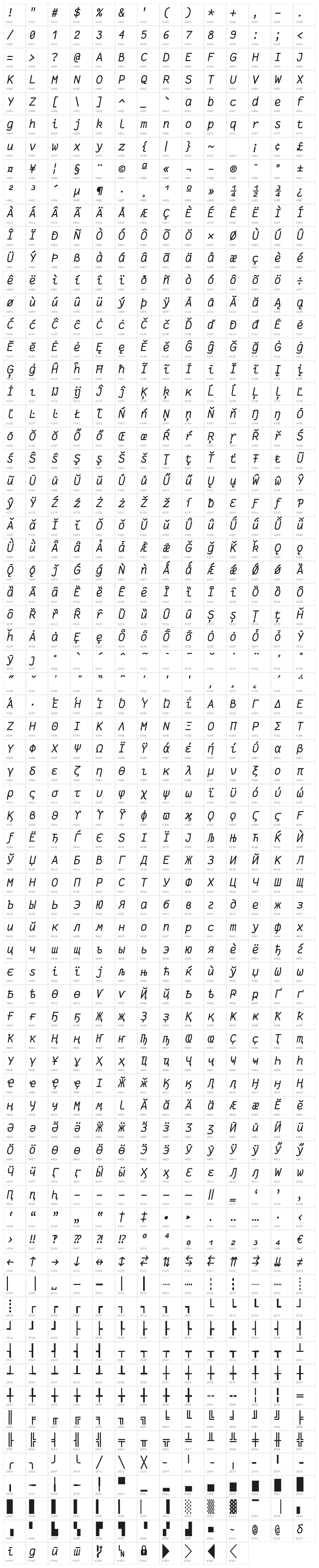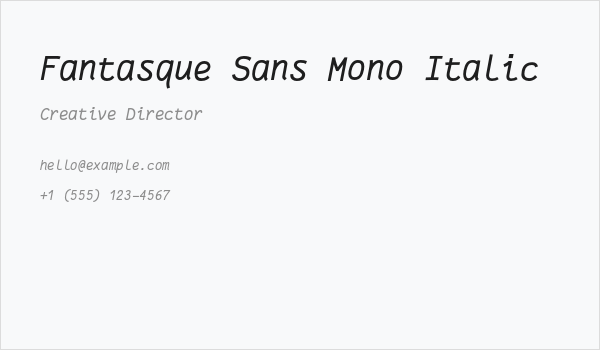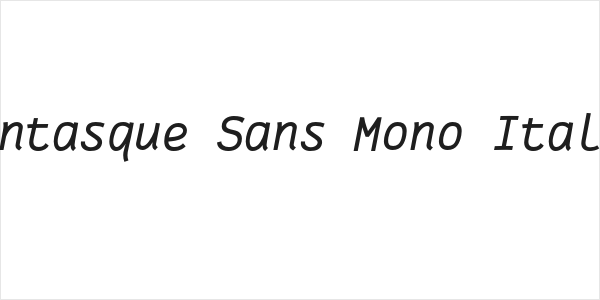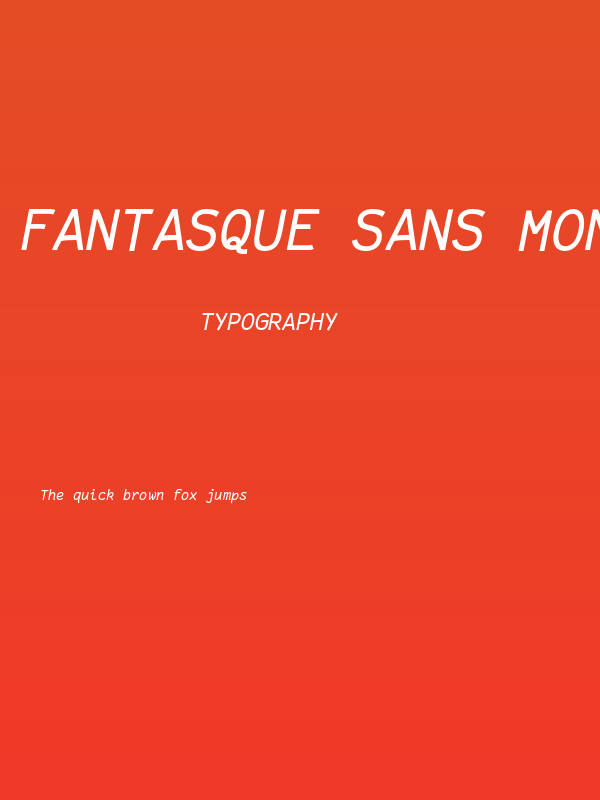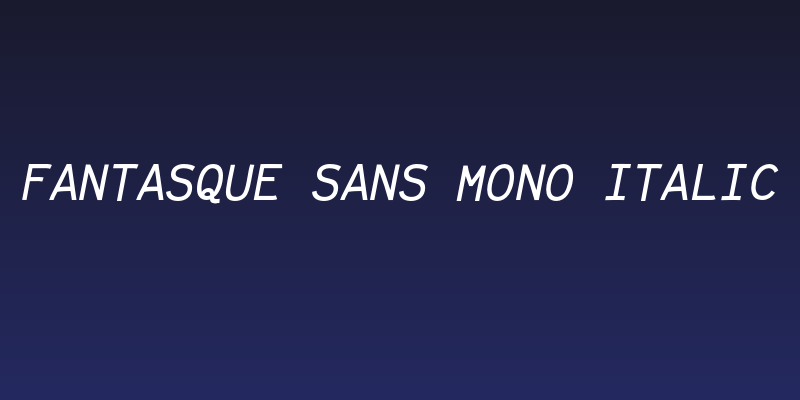
Fantasque Sans Mono Italic Font
Fantasque Sans Mono Italic Description
This font features a monospaced design with a playful and slightly informal style. The italicized characters add a dynamic and lively touch, making it stand out from traditional monospaced fonts. Each character maintains a consistent width, ensuring alignment in coding and tabular data. The strokes are smooth and rounded, providing a friendly and approachable appearance. The font's legibility is enhanced by its clear distinction between similar characters, such as '0' and 'O' or '1' and 'l'. The overall design is modern and versatile, suitable for both technical and creative applications.
Use CaseCoding, Technical documentation, Creative projects
Proposed ProjectsIdeal for coding environments, technical documentation, and creative projects requiring a unique monospaced font.